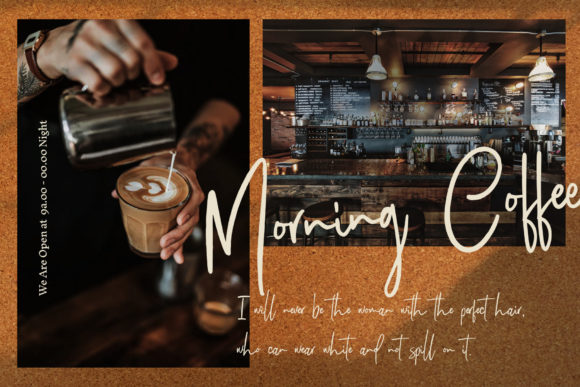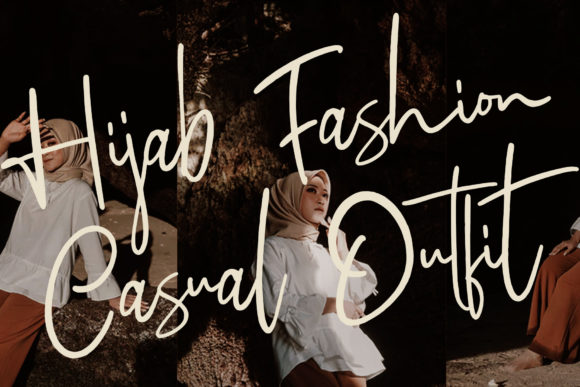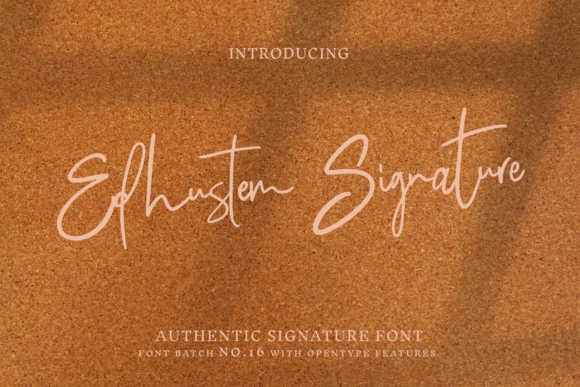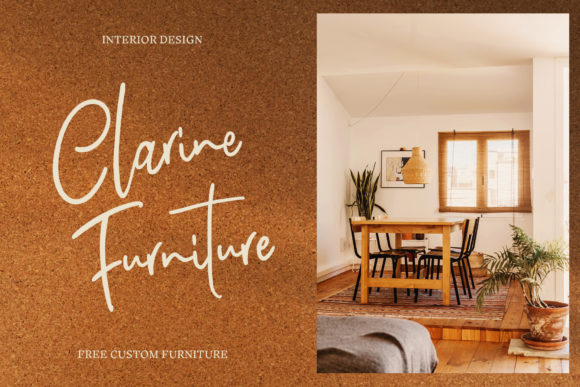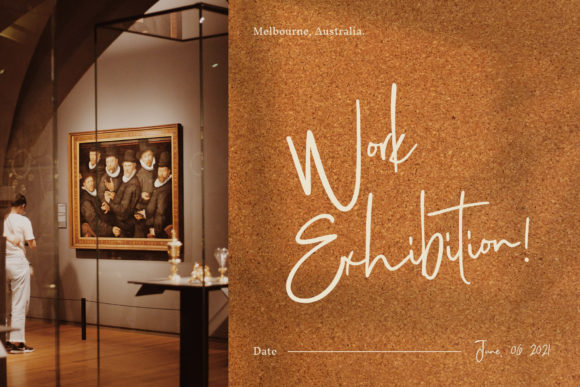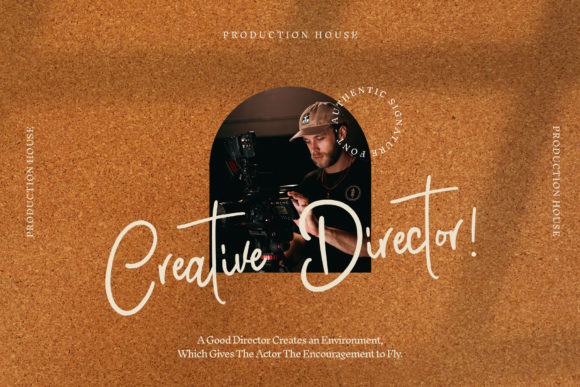
Edhustem Signature Font
About Edhustem Signature Font
Edhustem Signature is a thin and fashionable script font. It has a classy, elegant and modern look that can be used for logos, branding, invitations, stationery, wedding designs, social media posts, and much more!